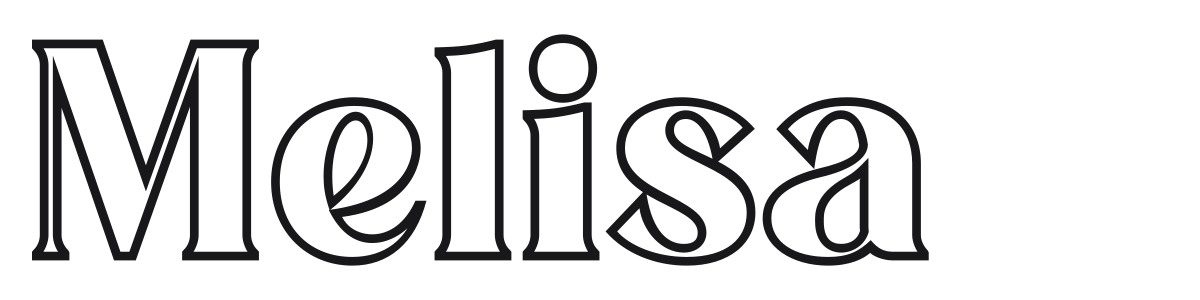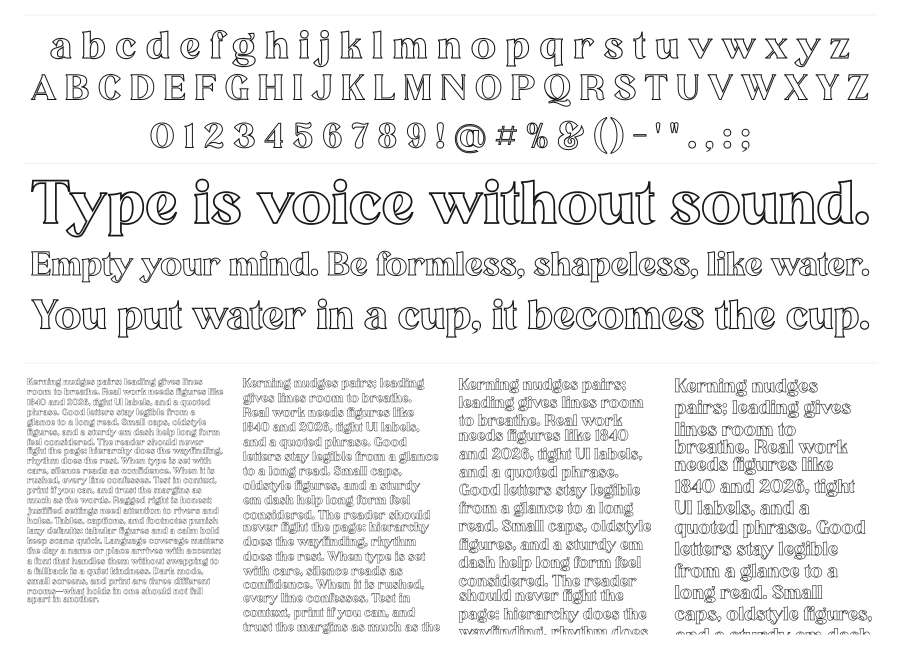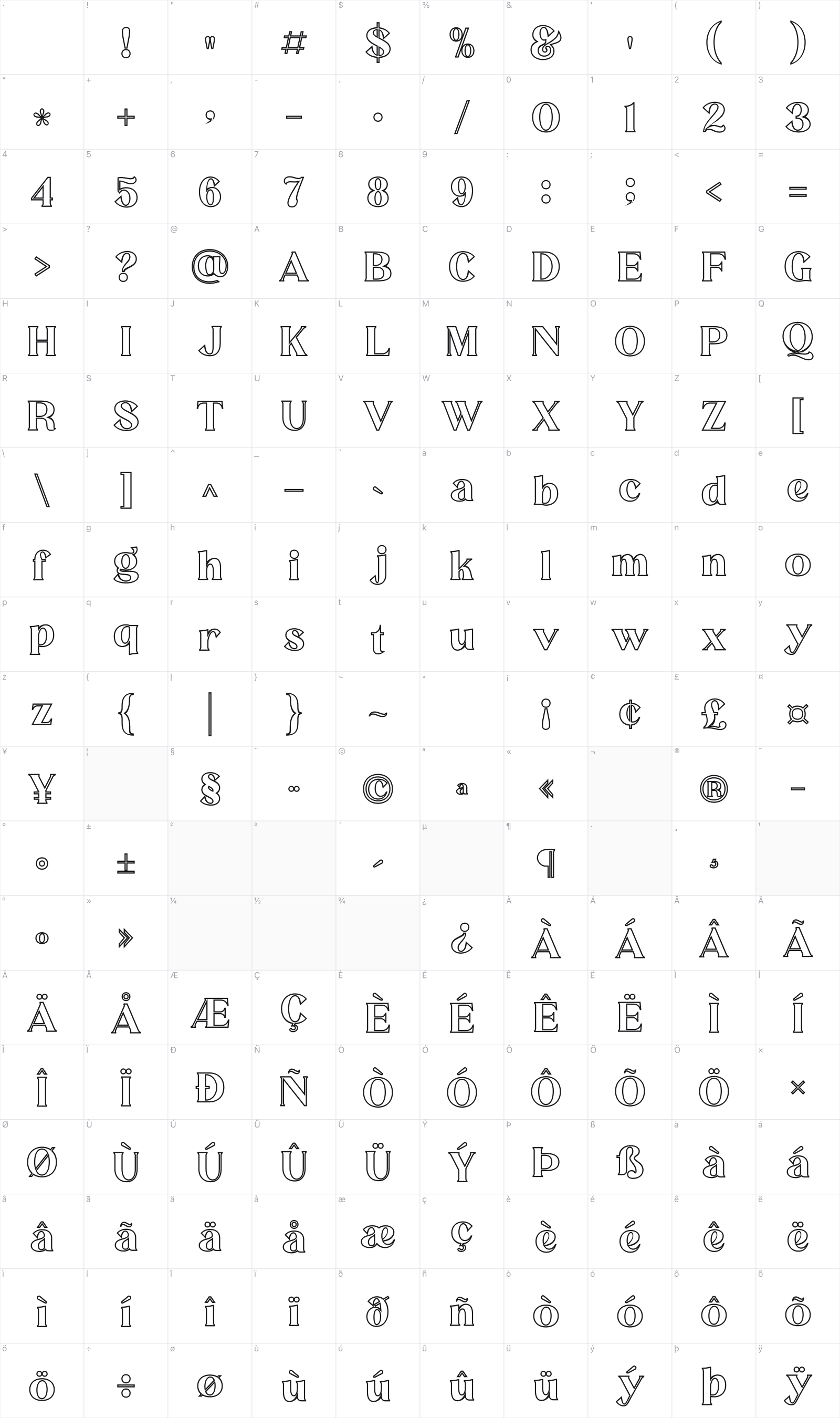
Melisa
Melisa is a bold outline serif with a retro warmth and generous proportions. The hollow double-stroke construction gives it a dimensional, almost hand-lettered quality that works well for logos, posters, and packaging where you want a vintage serif feel without the heaviness of a solid weight. It carries a cheerful elegance reminiscent of mid-century display typography.